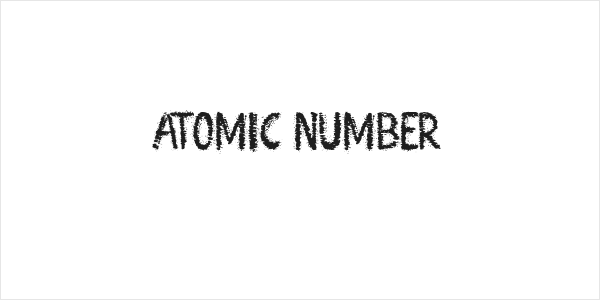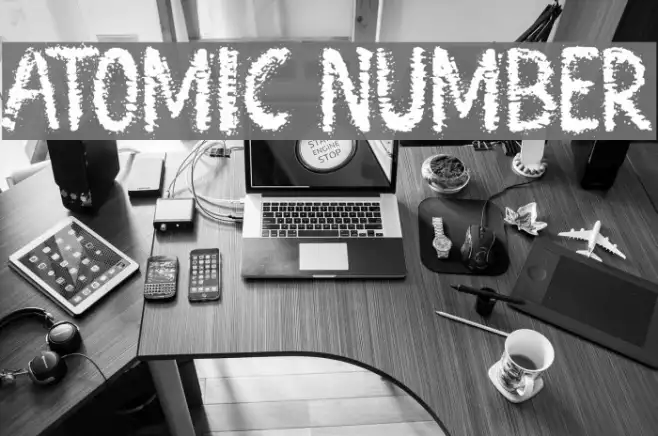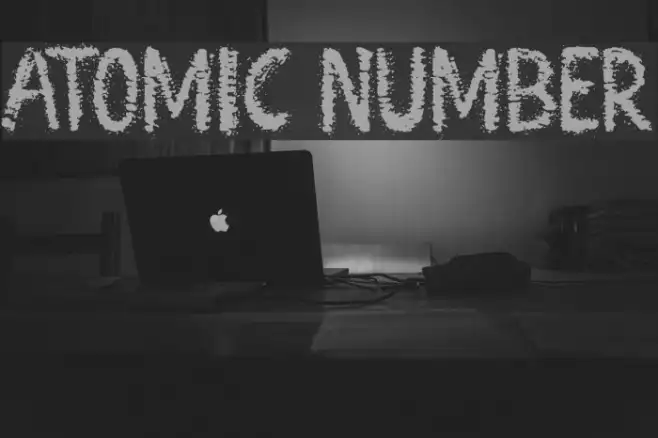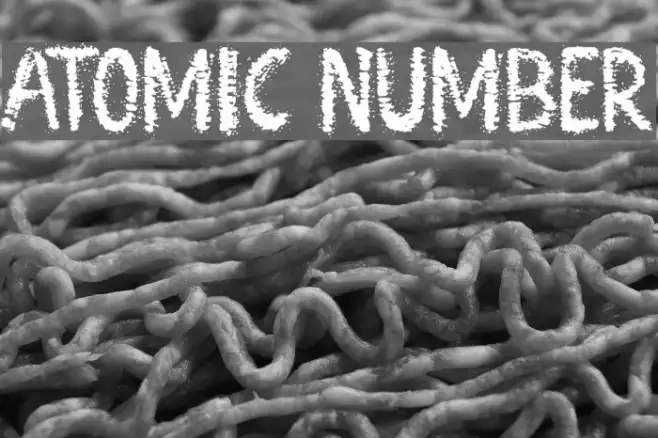
Atomic Number Font
Atomic Number Description
This font features a bold, distressed style with a textured appearance that mimics a spray-painted or grunge effect. The characters are uppercase and numerals, each with a rough, uneven edge that gives a sense of dynamism and energy. The font's unique texture makes it stand out, providing a raw and edgy aesthetic. It is ideal for projects that require a bold statement or a rebellious, urban feel. The characters are evenly spaced, maintaining readability despite their rugged appearance. This font is perfect for creating eye-catching headlines, posters, or any design that aims to capture attention with its distinctive style.
| Overall Style | Urban, Grunge, Edgy |
| Use Case | Headlines, Posters, Branding |
| Proposed Projects | Ideal for posters, album covers, streetwear branding, and urban-themed designs. |